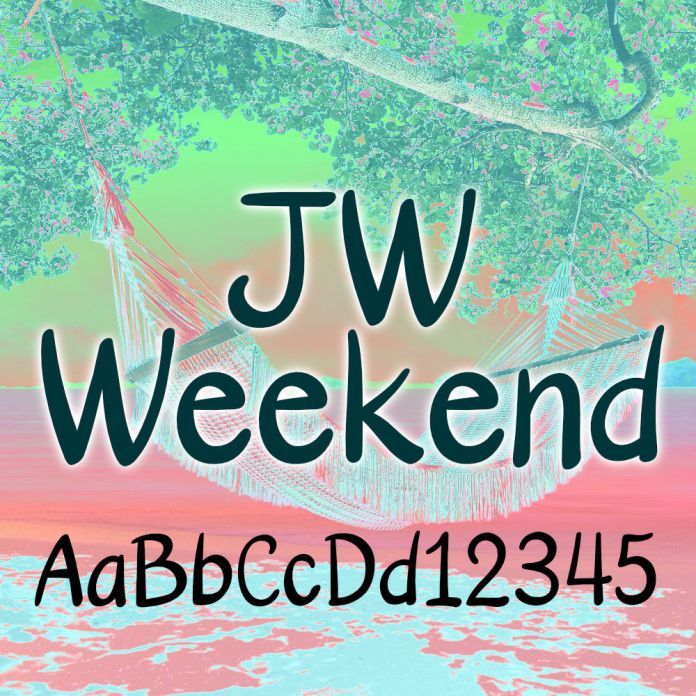
JW Weekend font is a modern Sans Serif typeface with a handwritten, casual design. Its key features include clean lines, rounded edges, and a contemporary feel. This font is perfect for creating a stylish and sophisticated look for various design projects such as logos, branding, and editorial layouts.